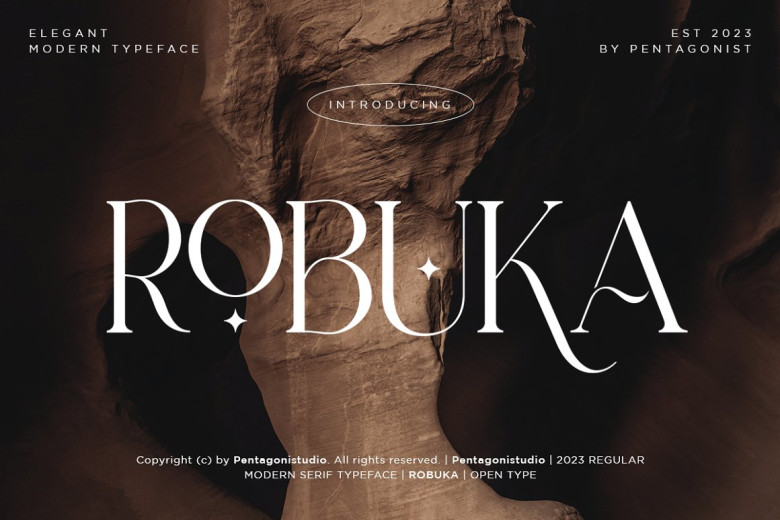
Robuka Font
Robuka is a modern serif font with stylistic alternates and ligatures. Robuka is a great choice for magazines, wedding invites, retro designs, newspapers, books, brand names, branding, quotes, album covers, and other projects.
Robuka Serif Font